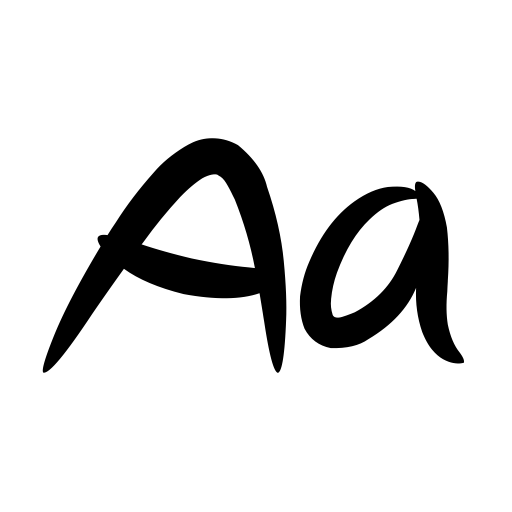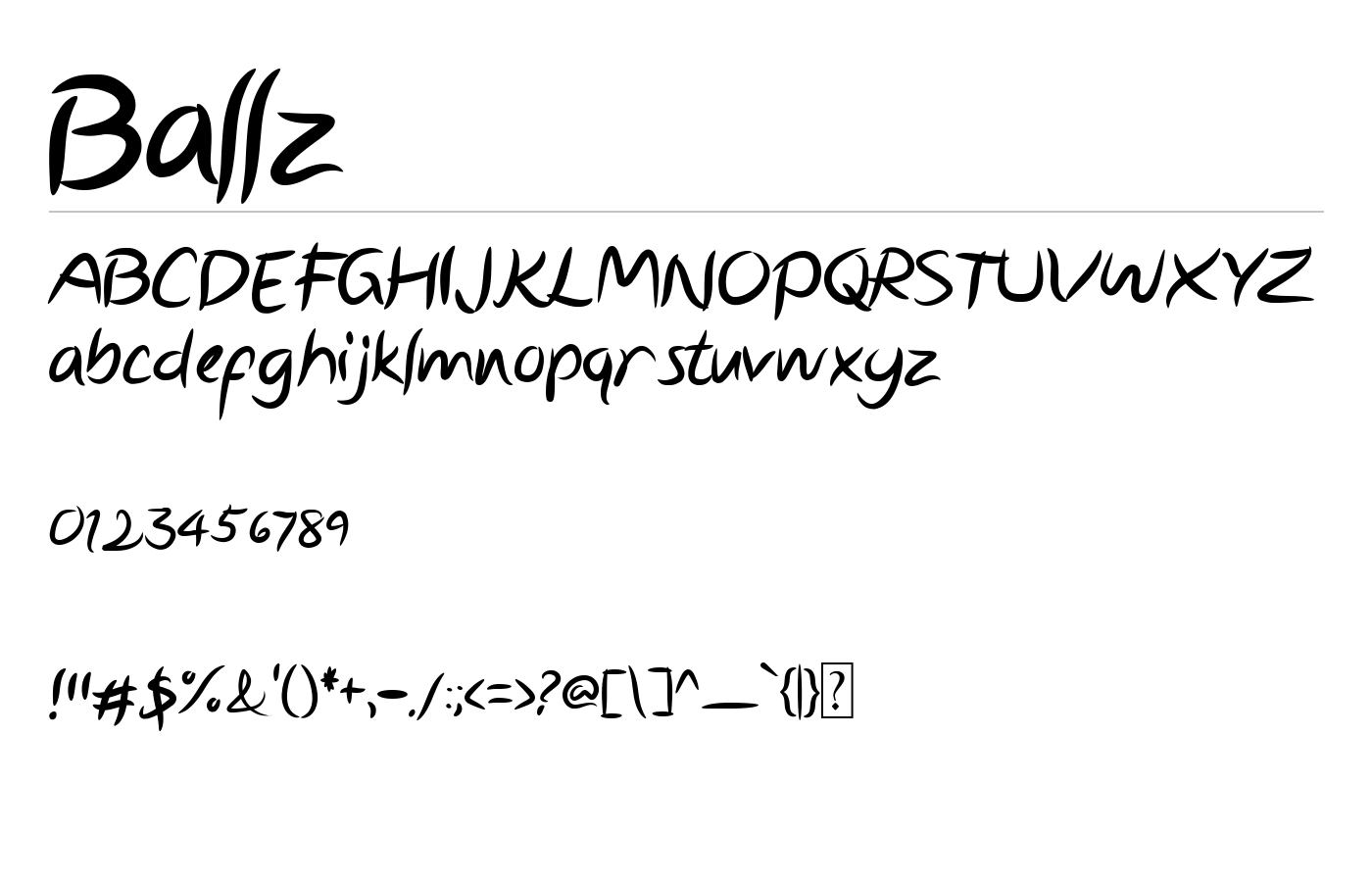
Ballz Font is a playful and informal handwritten typeface featuring a lively, brush-like style with moderate contrast and slightly condensed letterforms. Its casual, energetic character makes it ideal for creative projects, children’s materials, and branding that seeks a friendly, approachable vibe. This font works especially well for headlines, logos, and invitations where a personal, dynamic touch is desired.
Ballz Font
About Ballz Font